Trouble focusing with Minnesota top of mind, our new WIP design projects, and an update on the Identity Is Variable book.
WIP
While working to wrap up some long-simmering projects, we’ve also been noodling with some new things:
A Sans
I keep throwing out squircle-based designs for client projects, and Jesse had a design for Polymode Sans that was based on a similar idea from a bodega sign, so Zrinka took those various bits and has been working through what the idea could look like. We’re really loving where this is going.
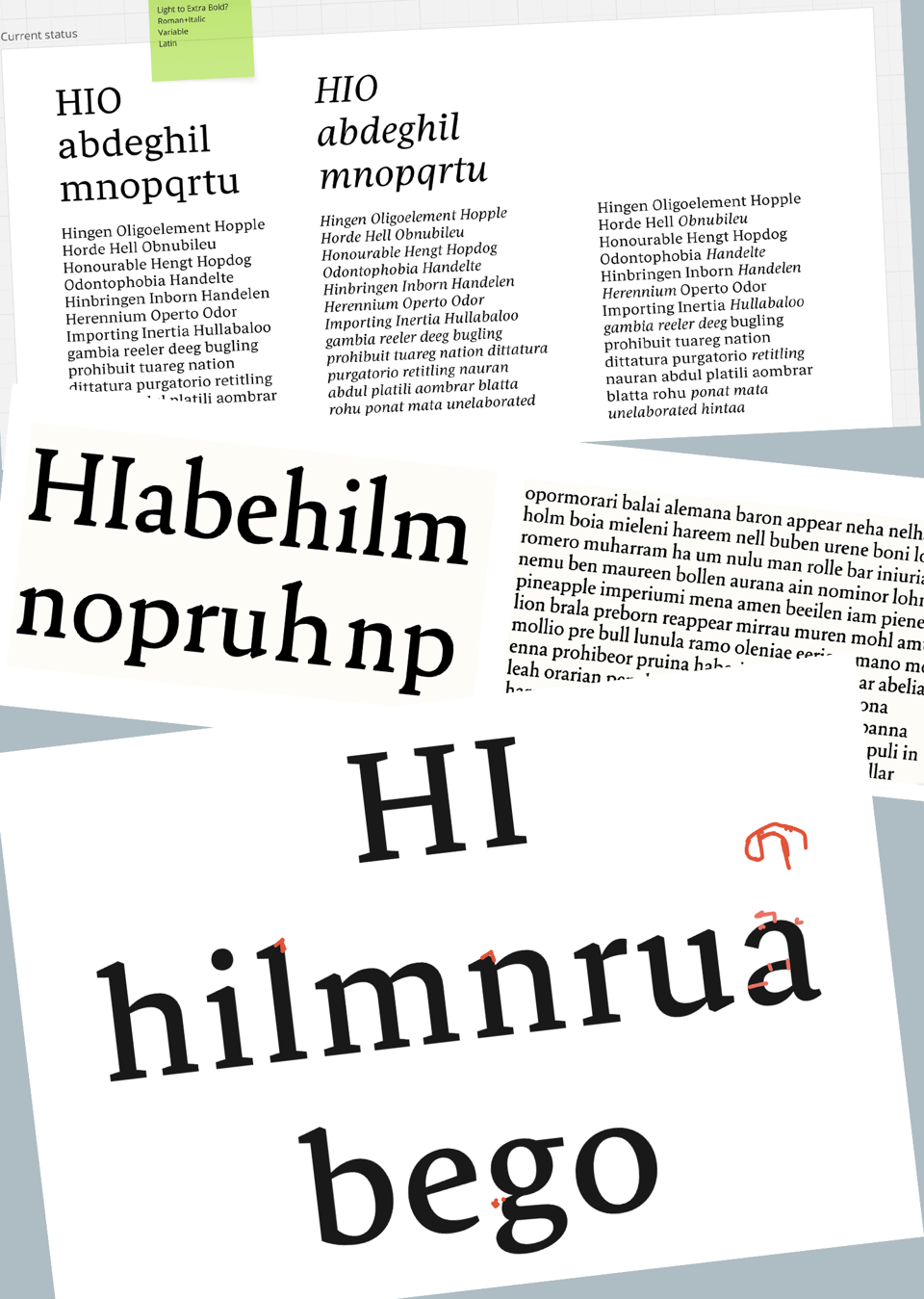
A Serif
Another start from an option a client didn’t choose, Zrinka has also been playing with a warm, bookish serif design.
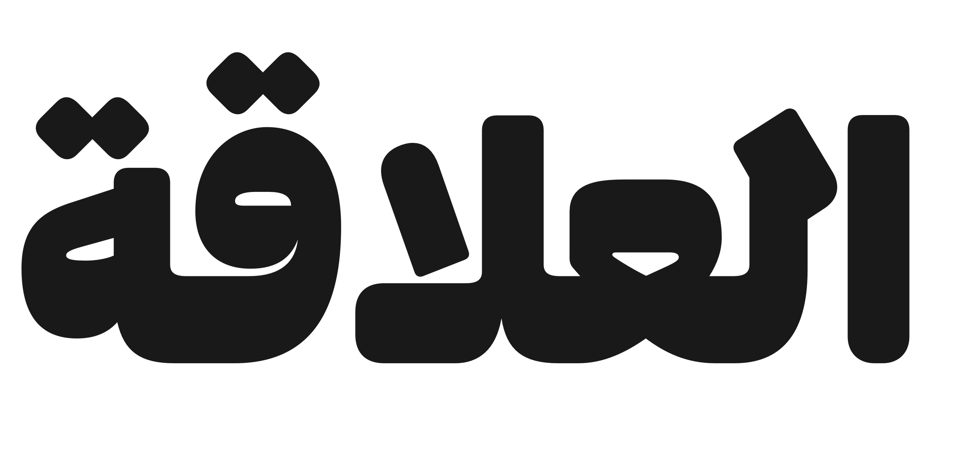
An Arabic
Aglet was not the super family we expected, but it made a lot of sense to work on an Arabic version of the design (sense = it would pair with three different Latin designs: Sans, Slab, and Mono; and this type of rounded design doesn’t have a ton of Arabic counterparts, so it will be somewhat unique). Kristyan Sarkis is working on this in partnership with TPTQ Arabic and us.